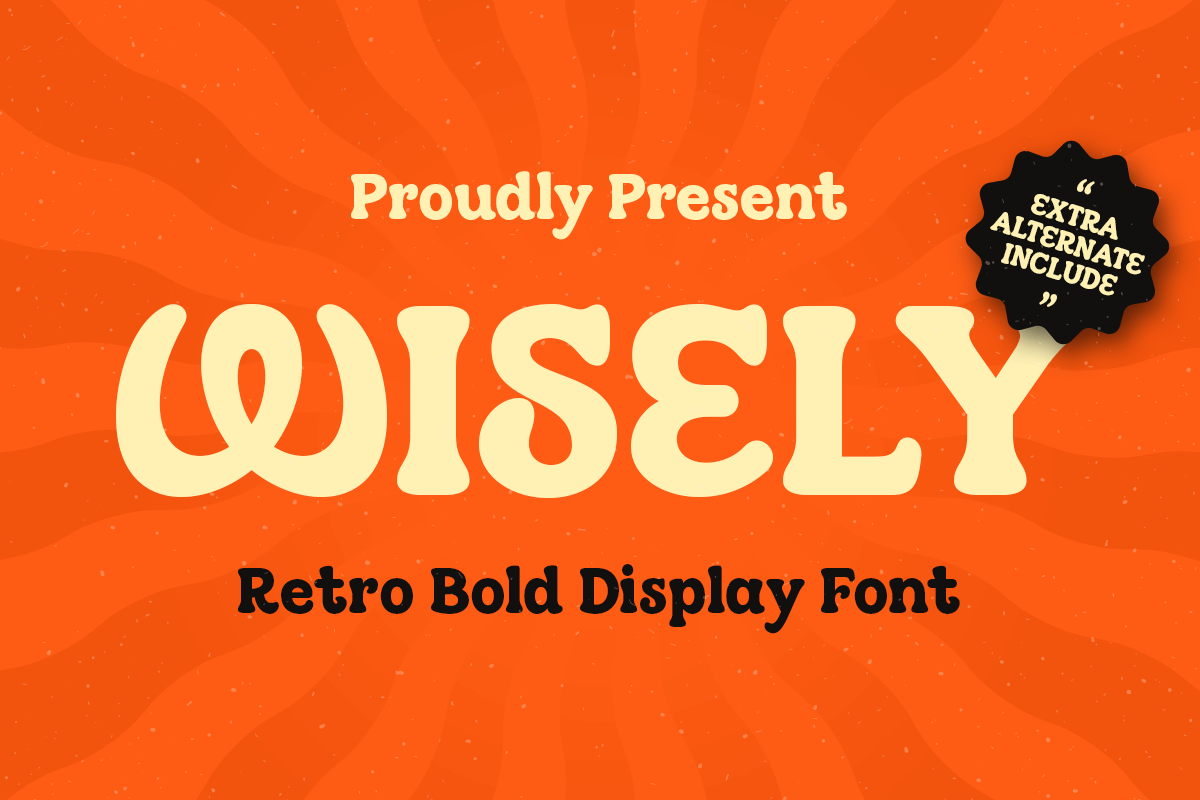
Wisely
-Retro Food Bold FontWisely - Retro Food Bold Font
Wisely is a retro bold food display font crafted to bring a fun, vintage, and appetizing vibe to your designs. Ideal for food branding, restaurant menus, packaging, posters, and social media, it combines bold letterforms with a playful retro aesthetic. With its eye-catching style and readability, Wisely ensures your culinary designs stand out in both print and digital formats, perfect for brands wanting a nostalgic yet modern food-inspired look.
Ideal for restaurant logos, menu designs, snack packaging, social media posts, or any creative project that calls for a bold retro statement. Every letter is crafted to look deliciously eye-catching while maintaining readability and balance.
With its nostalgic yet modern appeal, Wisely blends retro food culture aesthetics with contemporary design needs. From burger joints and coffee brands to vintage-style posters and fun digital ads, this typeface adds instant flavor and personality to any project — making your design look both timeless and irresistibly tasty.
Wisely – Retro Bold Food Display Font Features
Bold and retro character set
Perfect for food branding, menus, and packaging
OpenType features for extra versatility
Give your food branding a bold and nostalgic vibe with Wisely – the ultimate retro display font for culinary projects! ✨